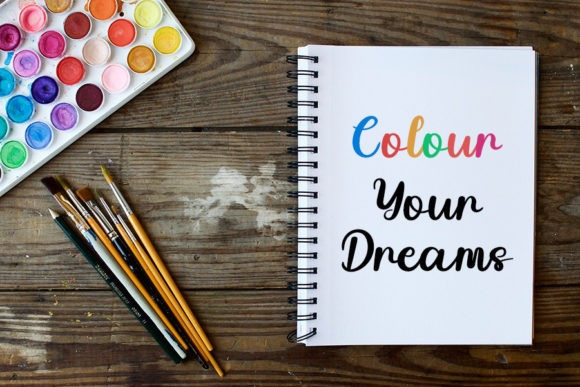
Snowman Font
Snowman Script Font is a stylish handwritten font with a contemporary atmosphere and impeccable form, inspired by timeless classic calligraphy. Not too thin and not too thick, balanced and varied, this font was designed to enhance the beauty of your projects.